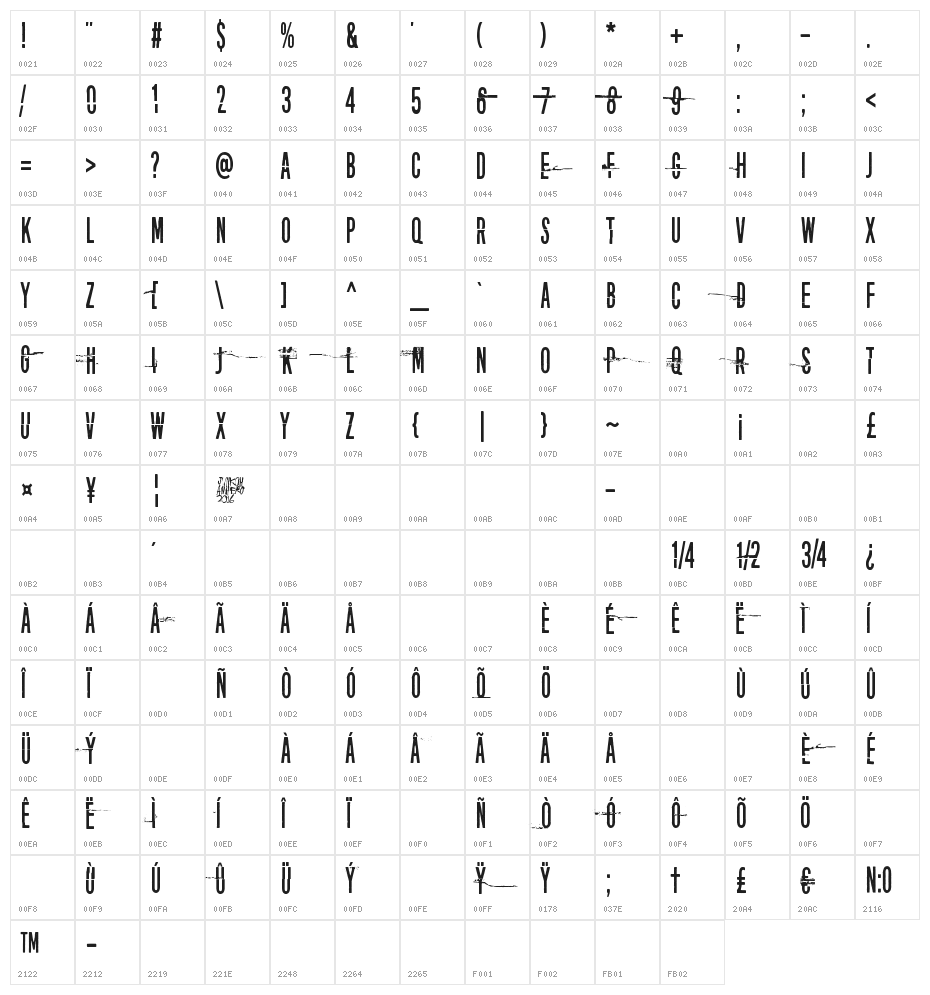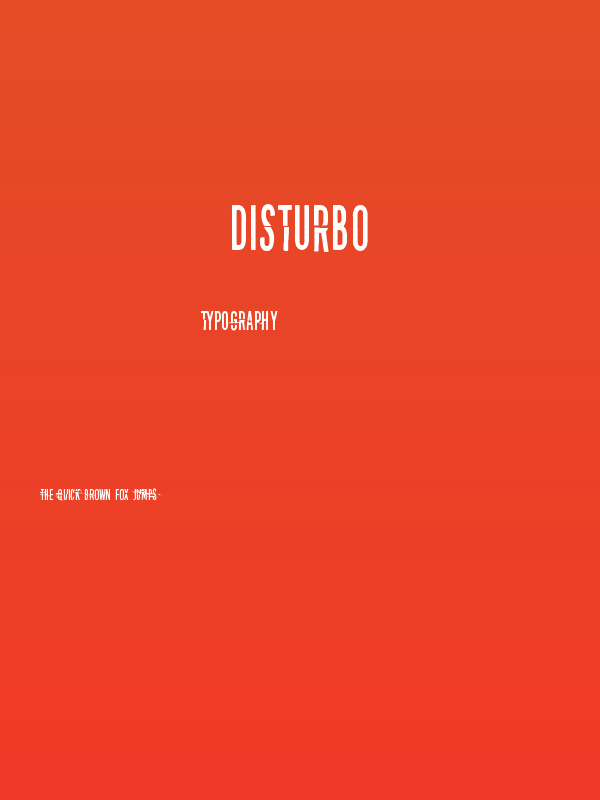
Disturbo Font
Disturbo Description
This font features a distressed, grunge aesthetic with a bold and impactful presence. The characters are tall and narrow, with a rough texture that gives them a worn, vintage feel. The letters are slightly irregular, adding to the chaotic and edgy style. The font includes uppercase letters, numbers, and a variety of punctuation marks, all maintaining the same distressed appearance. The overall look is reminiscent of street art or punk rock posters, making it ideal for projects that require a rebellious or unconventional vibe.
| Overall Style | Vintage, Grunge |
| Use Case | Logos, Posters, Headlines |
| Proposed Projects | Perfect for album covers, posters, streetwear branding, or any project needing a rebellious, edgy aesthetic. |